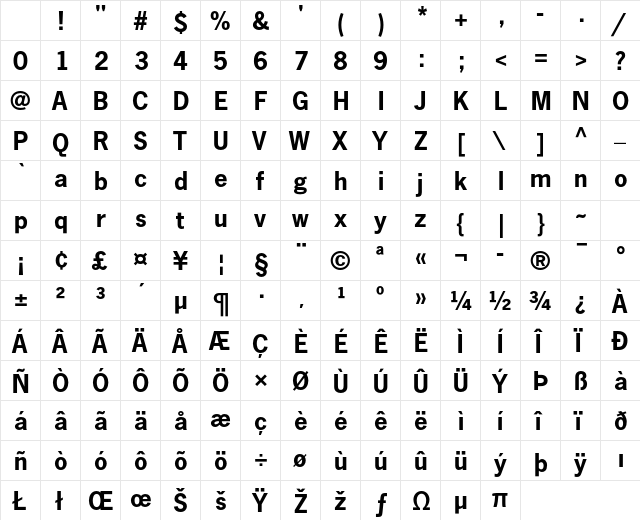
News Gothic Std Bold
Designer: Morris Fuller Benton
Complete News Gothic Std Bold glyph index. Displaying only characters natively supported by News Gothic Std Bold font.
Design Context for News Gothic Std
News Gothic Std takes a clean, functional approach - its unadorned letterforms prioritise legibility and work reliably across screen and print environments. Its bold stroke weight gives it real presence on the page.
Font Pairing: Use News Gothic Std for headlines alongside a lighter-weight sans or serif for body copy to establish clear visual hierarchy.
Pro Tip: Use News Gothic Std for UI labels, navigation, and short-form body copy where clean legibility is the priority.